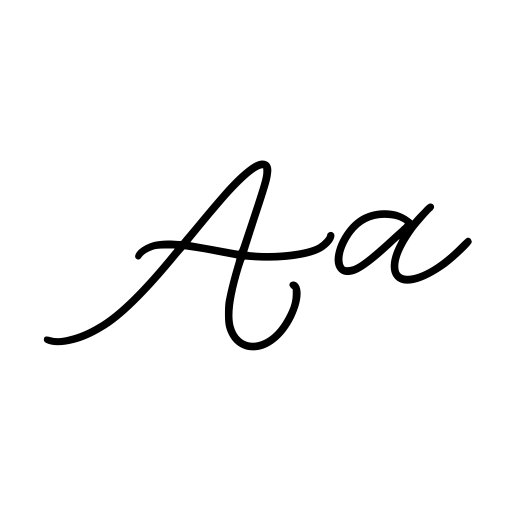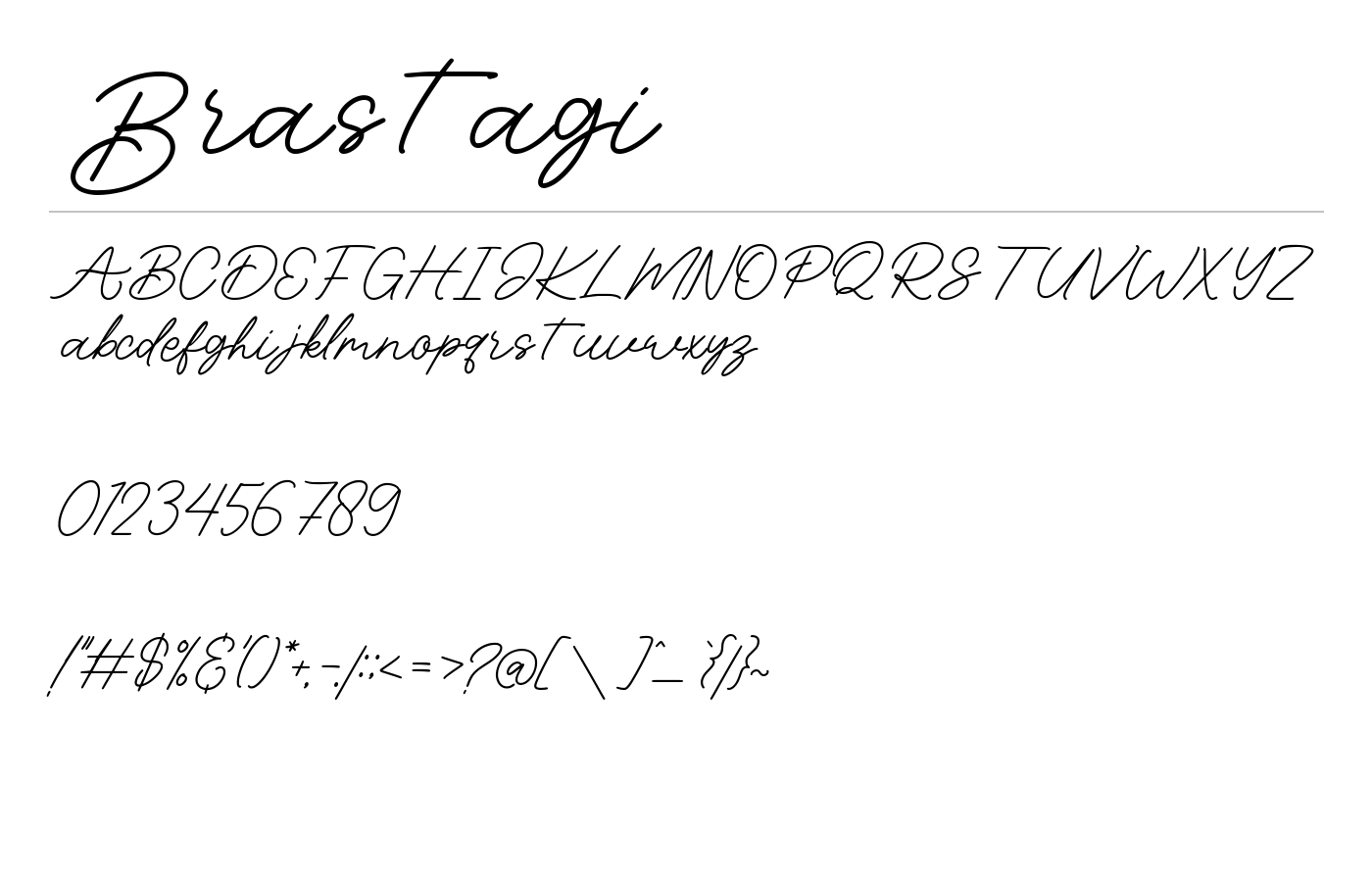
Brastagi is a delicate, elegant script font with a light, flowing stroke that mimics natural handwriting. Its slender, slightly slanted letterforms provide a graceful yet casual feel, making it perfect for invitations, fashion branding, and creative projects that require a personal, artistic touch. This font works well in both headers and short texts where a charming and stylish impression is desired.
Brastagi Font
About Brastagi Font
| Font family | Brastagi Font |
| Designer | Ribeth Studio |